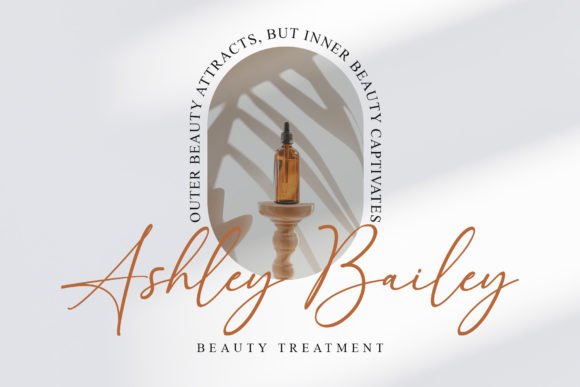
Hello Mellinda Font: The Sweet and Delicate Handwritten Font for Romantic Designs
Hello Mellinda is a beautiful, sweet, and delicate handwritten font that has captured the hearts of designers and crafty individuals alike. This dainty and joyful font is perfect for creating romantic, personalized designs, such as wedding invitations, cards, and other special occasions. In this article, we’ll dive into the world of Hello Mellinda font, exploring its features, uses, and benefits, as well as provide tips on how to make the most of this lovely font.
What is Hello Mellinda Font?
Hello Mellinda is a type of handwritten font that exudes a sense of elegance, sophistication, and romance. Its delicate and dainty strokes make it an ideal choice for designs that require a personal touch. This font is perfect for creating beautiful wedding invitations, greeting cards, and other paper crafts that demand a high level of emotional connection.
Features of Hello Mellinda Font
Hello Mellinda font boasts several features that make it a standout in the world of typography. Some of its notable features include:
- Sweet and delicate strokes: The font’s strokes are gentle and refined, giving it a romantic and whimsical feel.
- Handwritten style: Hello Mellinda has a distinctly handwritten look, making it perfect for designs that require a personal touch.
- Joyful and airy feel: The font’s airy and open design makes it easy to read and gives it a lighthearted feel.
Uses of Hello Mellinda Font
Hello Mellinda font is incredibly versatile and can be used for a wide range of design projects. Some of the most popular uses of this font include:
- Wedding invitations: The font’s romantic and elegant feel makes it perfect for creating beautiful wedding invitations.
- Greeting cards: Hello Mellinda is ideal for creating personalized greeting cards for special occasions, such as birthdays, anniversaries, and holidays.
- Paper crafts: The font’s delicate and dainty strokes make it perfect for creating intricate paper crafts, such as scrapbooking and card making.
- Branding and packaging: Hello Mellinda can also be used for branding and packaging designs that require a touch of elegance and sophistication.
Benefits of Using Hello Mellinda Font
Using Hello Mellinda font offers several benefits, including:
- Emotional connection: The font’s romantic and personal feel helps create an emotional connection with the reader.
- Elegance and sophistication: Hello Mellinda adds a touch of elegance and sophistication to any design.
- Versatility: The font’s versatility makes it suitable for a wide range of design projects.
- Easy to read: The font’s airy and open design makes it easy to read, even at small sizes.
Tips for Using Hello Mellinda Font
To make the most of Hello Mellinda font, follow these tips:
- Pair with complementary fonts: Pair Hello Mellinda with complementary fonts to create visual interest and hierarchy.
- Use for headlines and titles: Use Hello Mellinda for headlines and titles to add a touch of elegance and sophistication.
- Experiment with colors: Experiment with different colors to find the perfect match for your design.
- Pay attention to spacing: Pay attention to spacing and kerning to ensure the font looks elegant and refined.
Hello Mellinda font is a beautiful, sweet, and delicate handwritten font that’s perfect for creating romantic, personalized designs. Its features, uses, and benefits make it an ideal choice for designers and crafty individuals looking to add a touch of elegance and sophistication to their projects. By following the tips outlined in this article, you can make the most of Hello Mellinda font and create stunning designs that leave a lasting impression.
- What is Hello Mellinda font? Hello Mellinda font is a sweet and delicate handwritten font.
- What is Hello Mellinda font used for? Hello Mellinda font is used for creating romantic, personalized designs, such as wedding invitations, cards, and paper crafts.